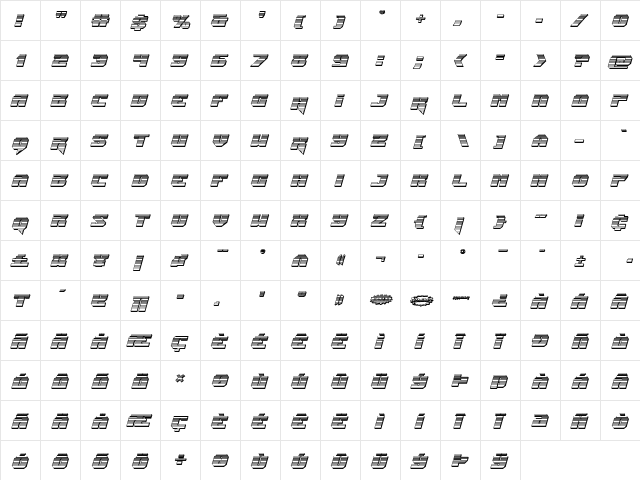
Jumpers Chrome Italic Italic
Design Context for Jumpers Chrome Italic Typeface
Jumpers Chrome Italic is a composed and adaptable typeface that performs quietly and consistently across a wide range of design contexts. The dynamic lean of this cut emphasises speed and emphasis in any layout.
Pro Tip: Use Jumpers Chrome Italic for emphasis, pull quotes, and subheadings where its slanted energy can add rhythm to the layout.